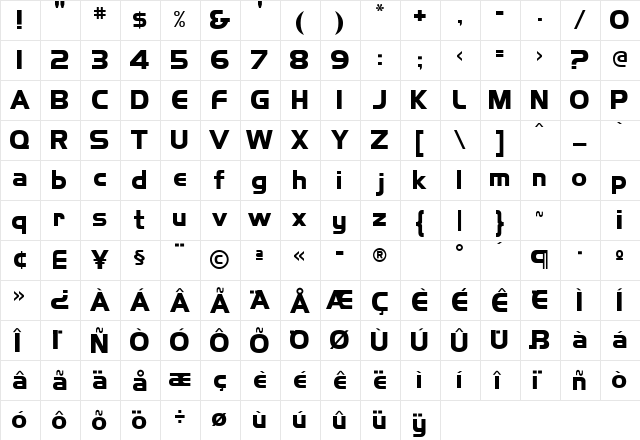
HancockParkLaser Park Bold Laser
HancockParkLaser offers clean, dependable letterforms without strong stylistic allegiance, making it a practical choice for designers who need flexibility. The heavy weight commands attention and anchors typographic hierarchies.